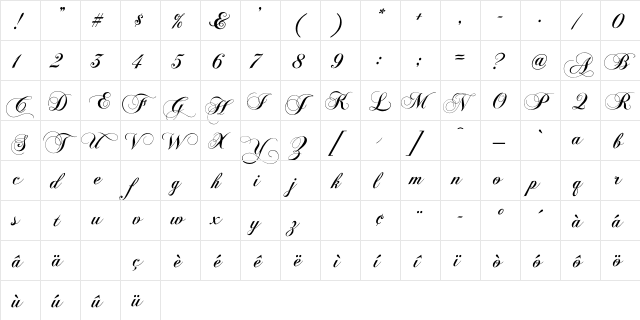
ChopinScriptC Regular
Design Context for ChopinScriptC Typeface
ChopinScriptC brings a calligraphic fluidity to the page — its connecting strokes and expressive curves give it an unmistakably human quality.
Font Pairing: Combine ChopinScriptC with a simple geometric sans for maximum contrast — the tension between flowing curves and clean structure is a classic typographic pairing.
Pro Tip: Use ChopinScriptC for short runs of text — names, titles, or taglines. Extended body copy in script faces tires the eye quickly.